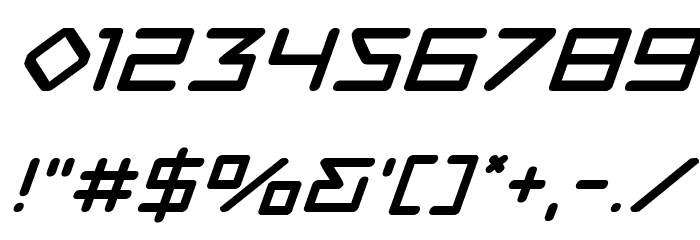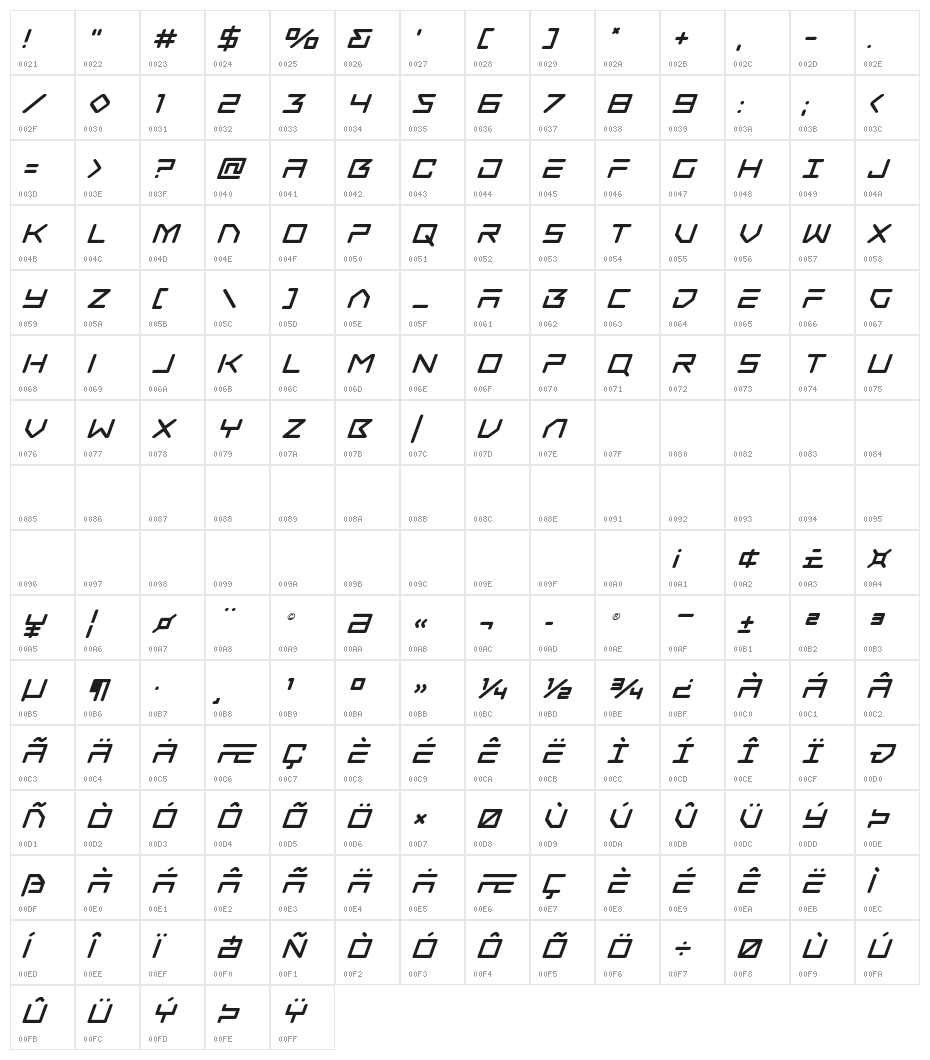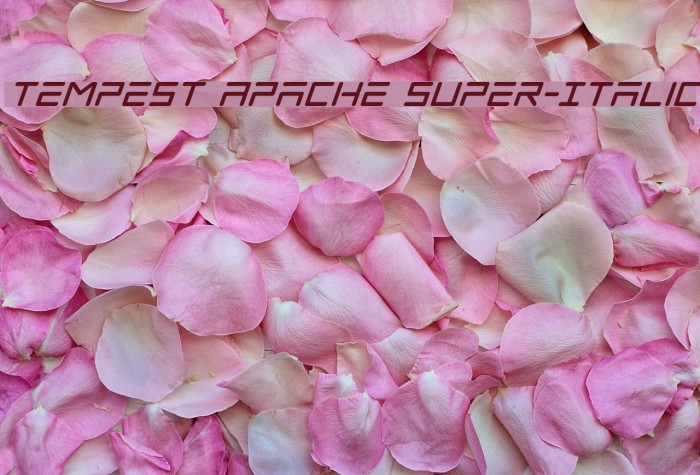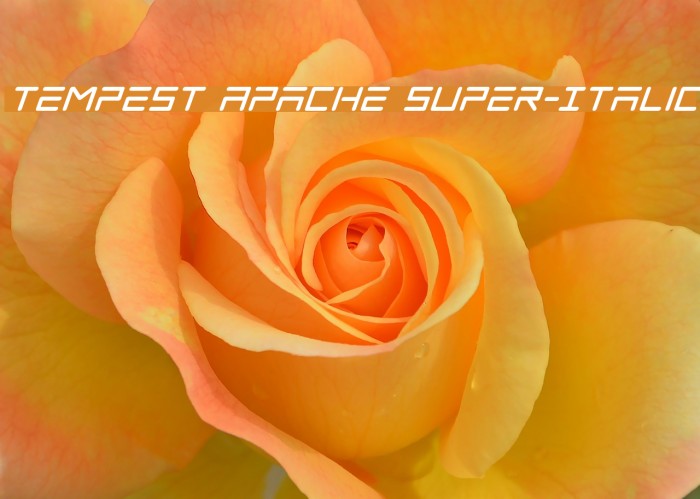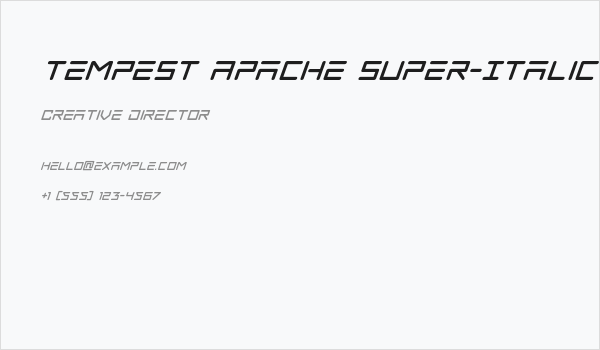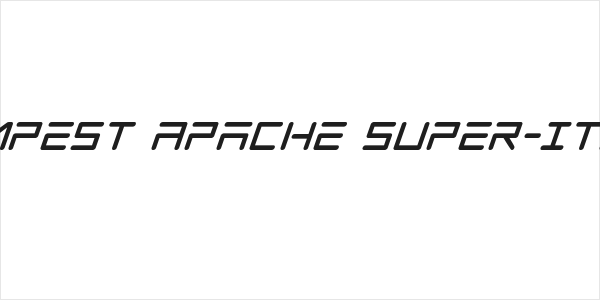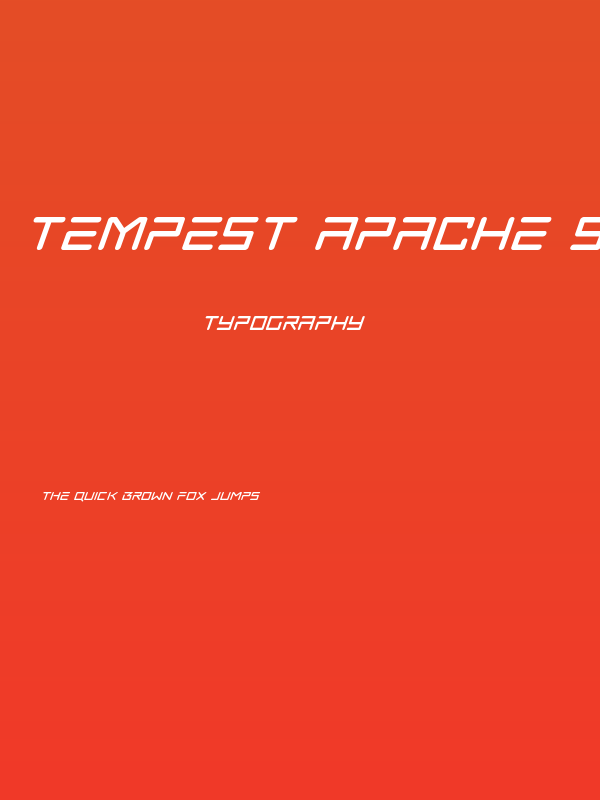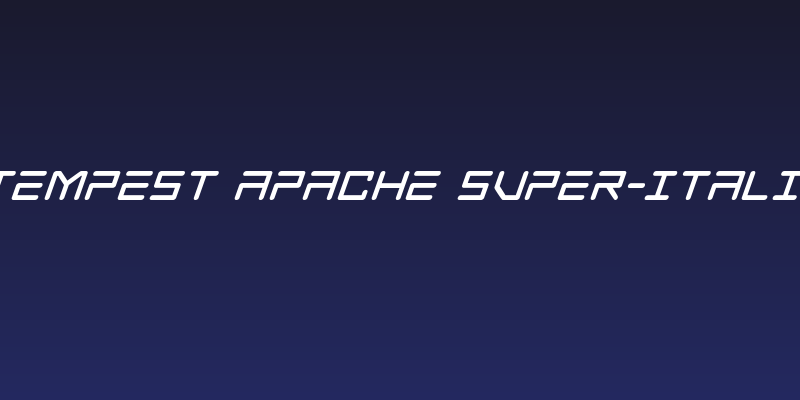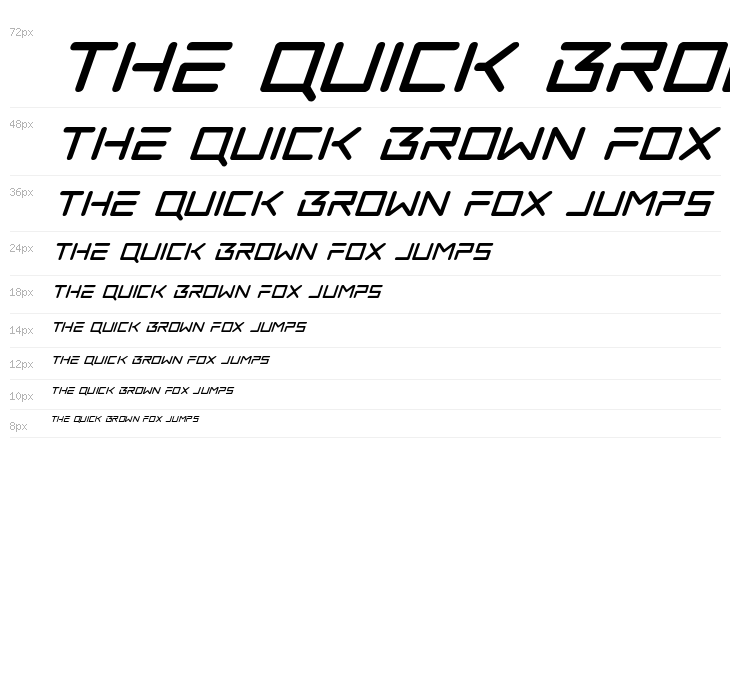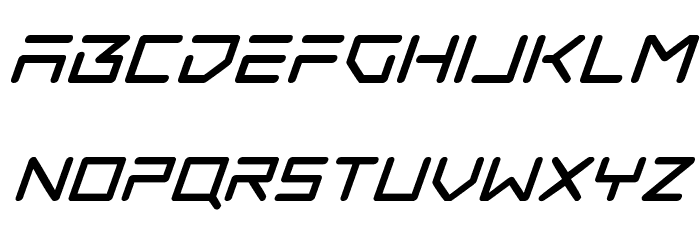
Tempest Apache Super-Italic Font
Tempest Apache Super-Italic Description
This font features a dynamic and modern design with a slanted, italicized style that gives it a sense of motion and energy. The characters are sleek and angular, with a futuristic aesthetic that is both bold and distinctive. The uppercase and lowercase letters maintain a consistent style, with sharp edges and a streamlined appearance. The numerals and special characters are designed to match the overall theme, providing a cohesive look across all elements. This font is ideal for projects that require a contemporary and edgy feel.